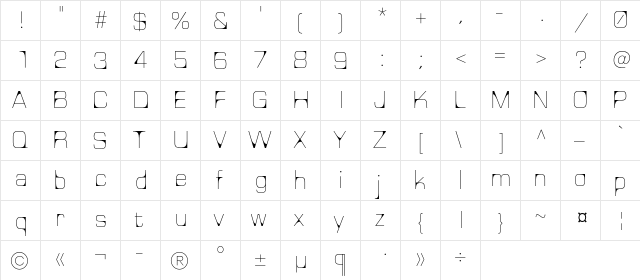
NelmaC Regular
Design Context for NelmaC Typeface
NelmaC offers clean, dependable letterforms without strong stylistic allegiance, making it a practical choice for designers who need flexibility.